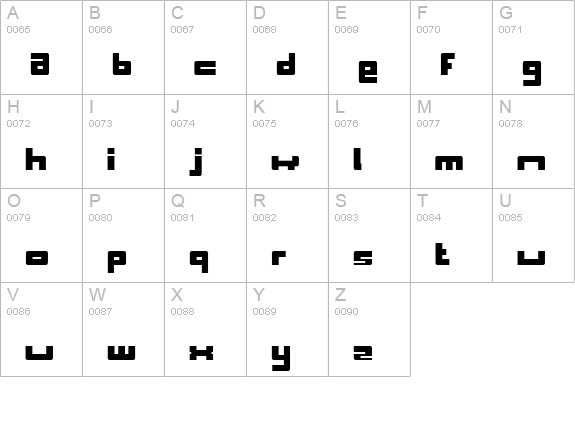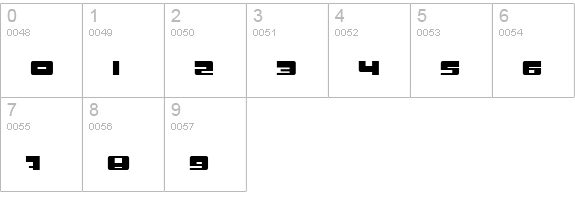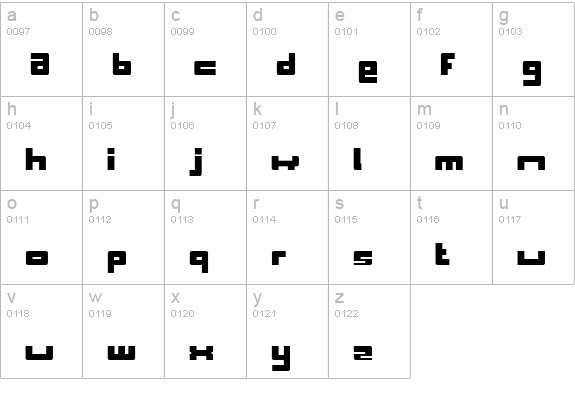
BN Space Chick Font Details
Introducing BN Space Chick font, a whimsical and futuristic typeface that will take your designs to infinity and beyond! This playful font features quirky characters with a sci-fi twist, making it perfect for a wide range of projects, from space-themed posters to children's book illustrations. But that's not all - the best part about BN Space Chick font is that it is absolutely free! Yes, you read that right. This fun and unique font can be downloaded at no cost from FontsMarket.com, allowing you to unleash your creativity without breaking the bank. So why wait? Add a touch of intergalactic charm to your designs with BN Space Chick font today and let your imagination soar across the galaxy!